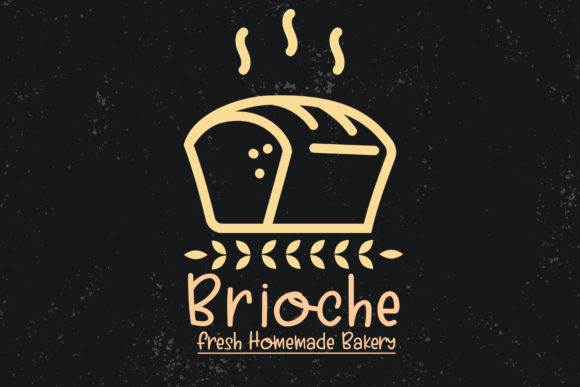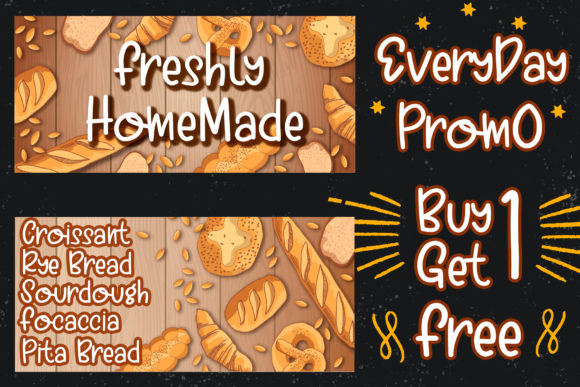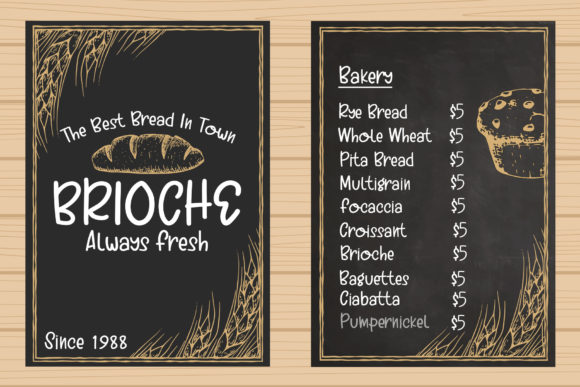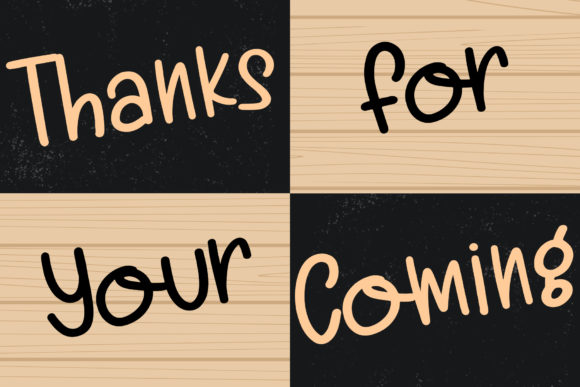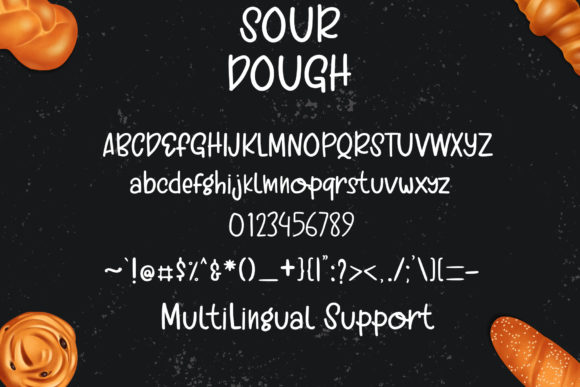
Sour Dough Font
About Sour Dough Font
Sour Dough is a cute and quirky handwritten font. This font will match any cute project you have in mind. Build your creativity with this font!